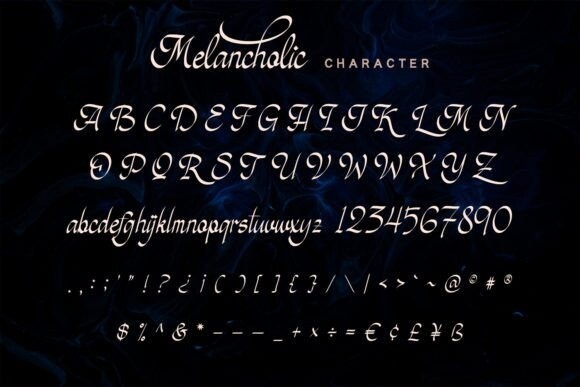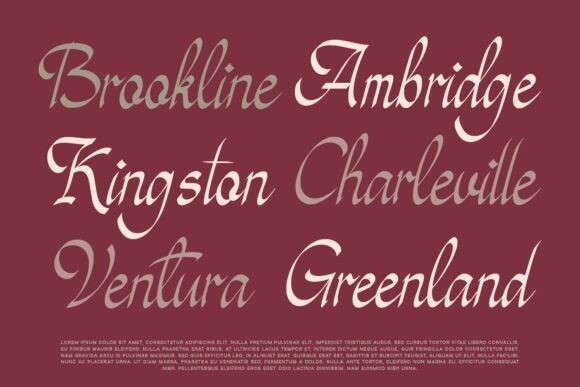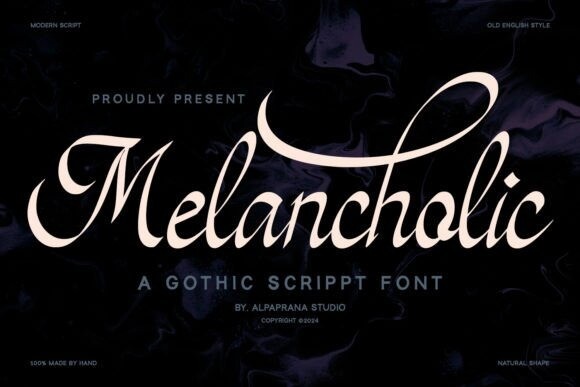
Melancholic Font
Designer: alpapranastudio
Melancholic Font is a stylish script font that embodies sophistication and grace. With its fluid, sweeping letterforms, this font exudes a timeless elegance and adds a touch of glamour to any project. Ideal for conveying luxury and refinement, Melancholic elevates your designs with its captivating aesthetic.